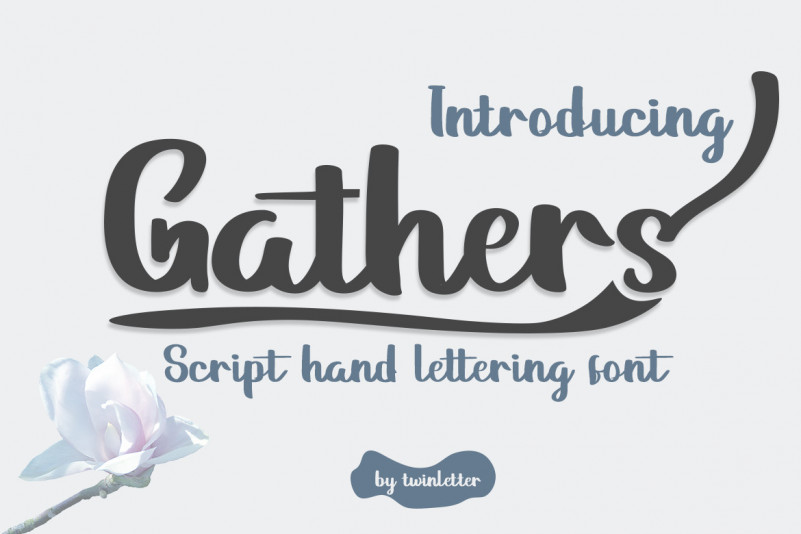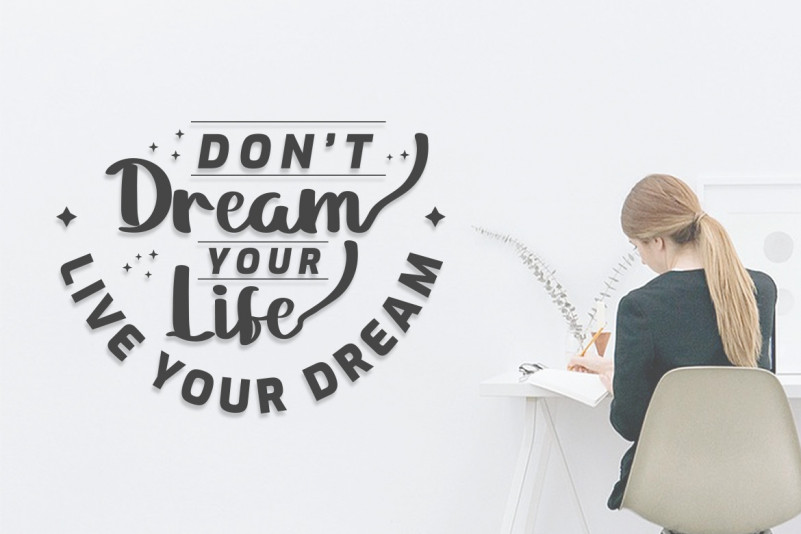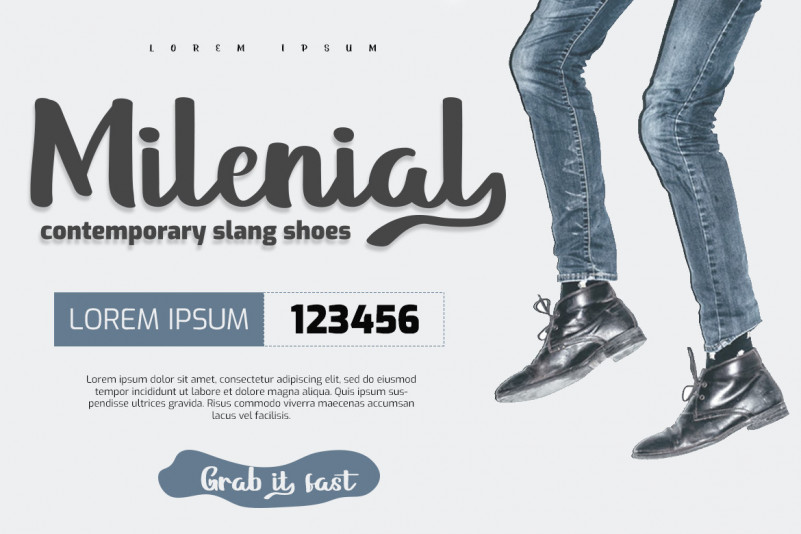
Gathers Handwritten Font
Gathers is a modern script font. This enchanting font will turn any creative idea into a true standout. Get creative with its unique look, and use it to brighten up any crafting project!
Introduce my font, this font is a script font that is connected with clear style and dramatic movements.
This font comes with uppercase letters, lowercase letters, numbers, punctuation marks, and so many variations on each character including alternating opentypes, common binders and additions to make you customize your design. Perfect to use for Logotype, Letterhead, Posters, Clothing Designs, Labels and all designs that require handwriting